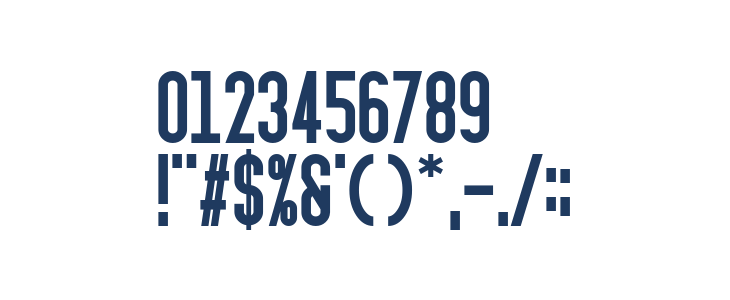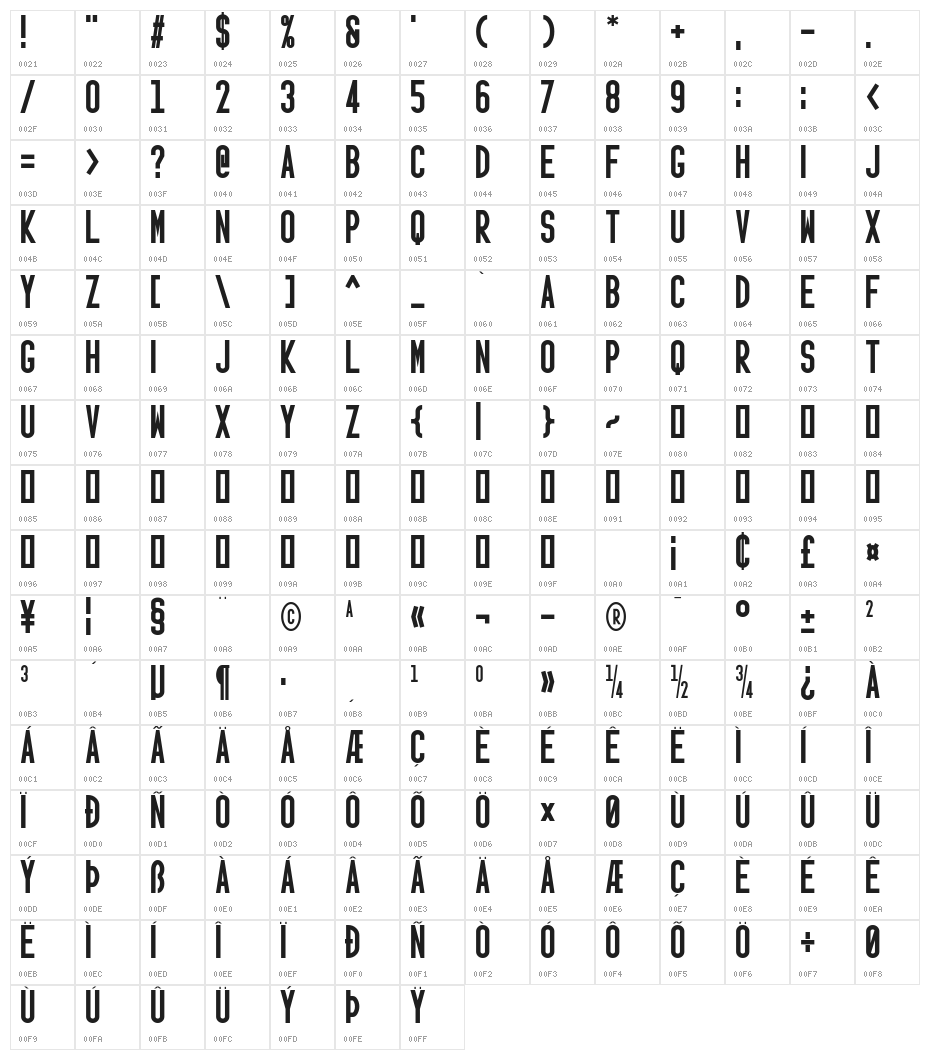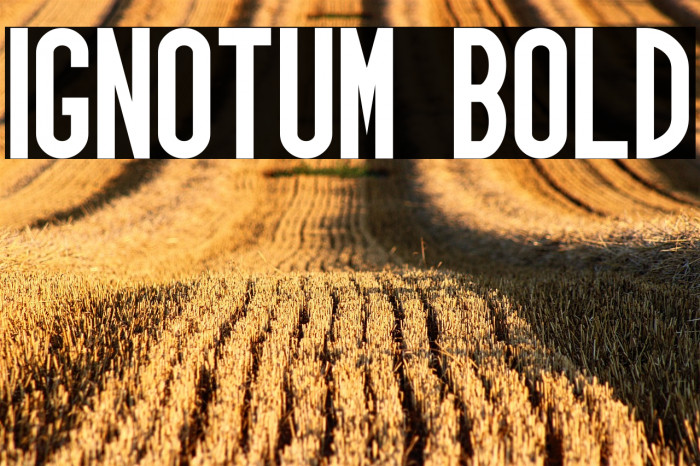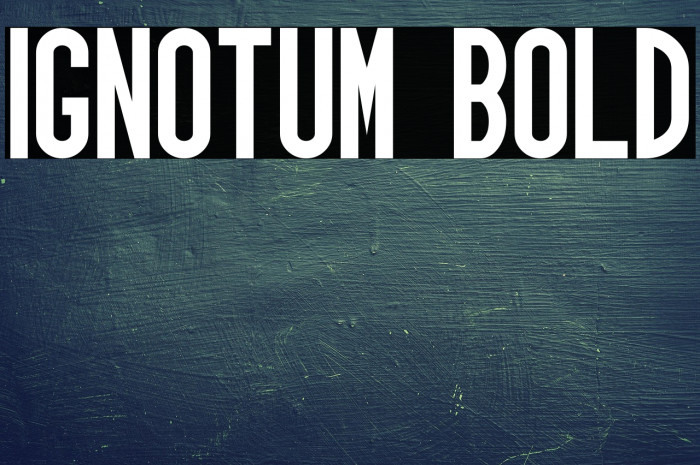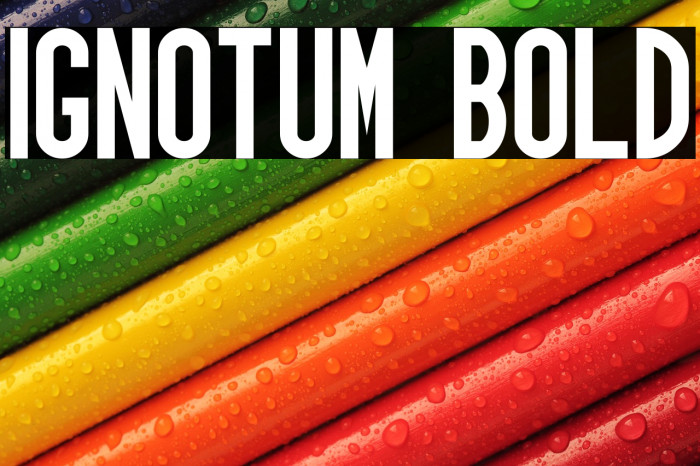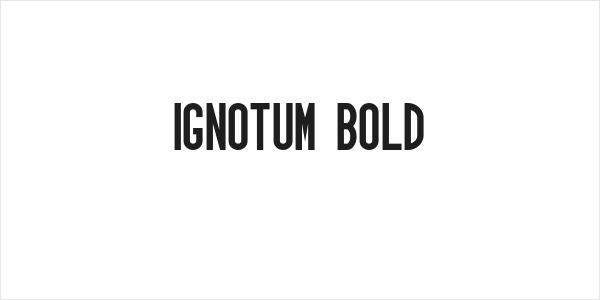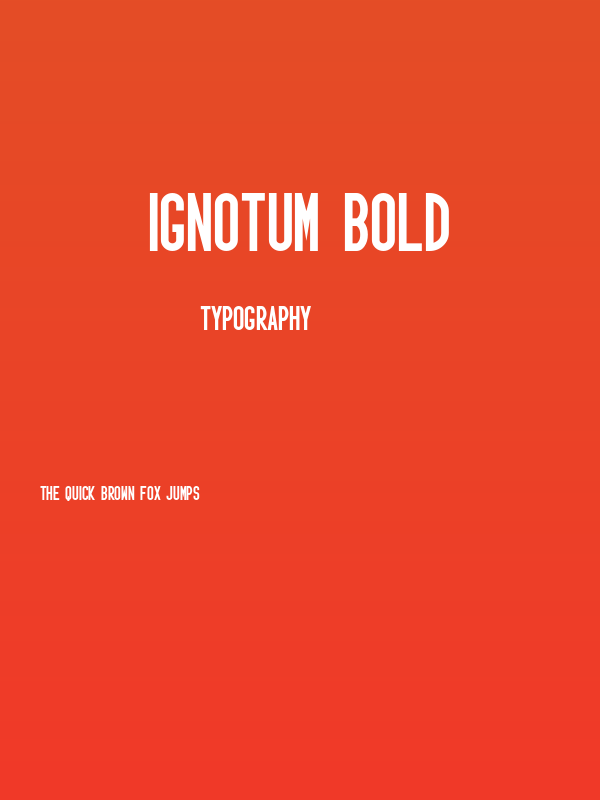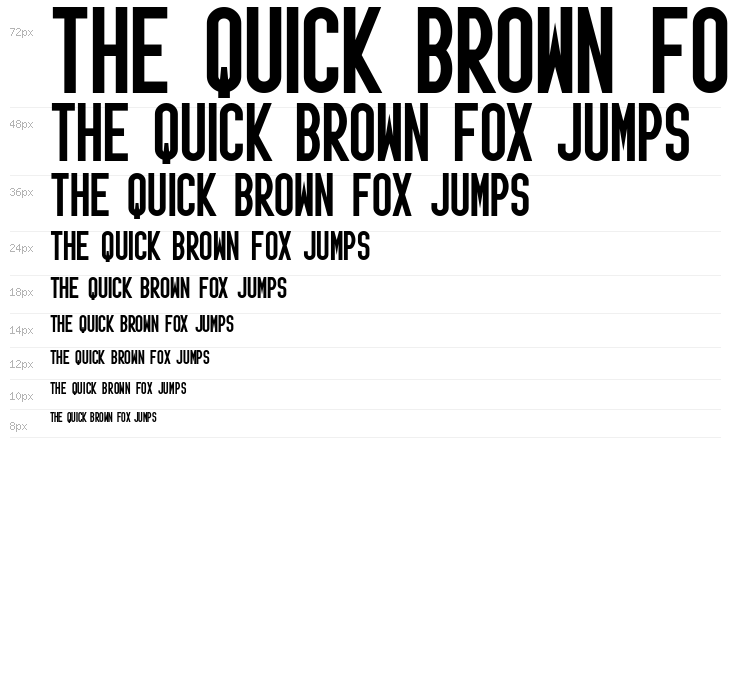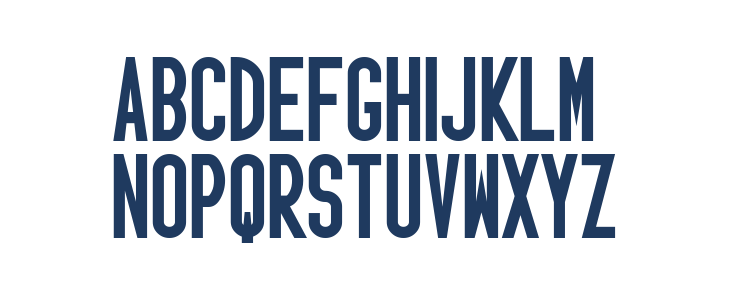
Ignotum Bold Font
Ignotum Bold Description
This font features bold, uppercase and lowercase letters with a strong presence. The characters are tall and narrow, giving a condensed appearance. The strokes are uniform in thickness, providing a consistent and clean look. The numbers and special characters maintain the same boldness and clarity, ensuring readability across various uses. The overall design is modern and impactful, suitable for making statements in headlines or logos.
| Proposed Projects | Ideal for headlines, posters, branding, and logo design where a strong, modern impact is desired. |